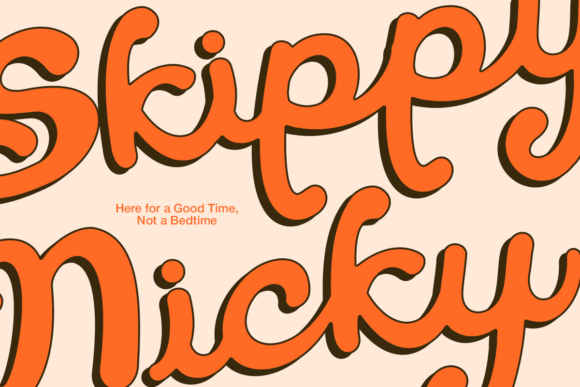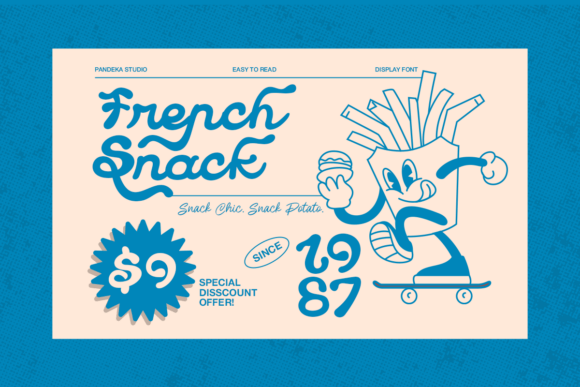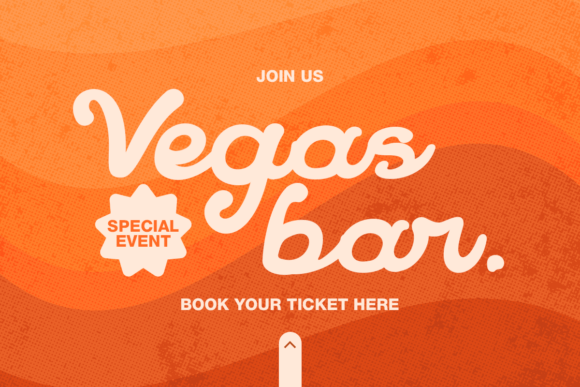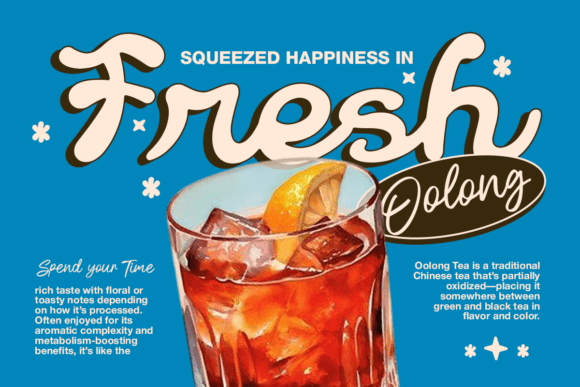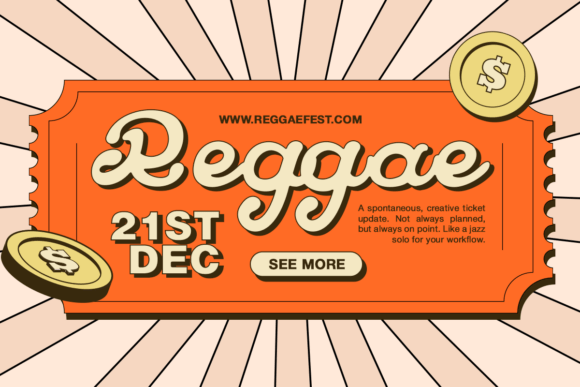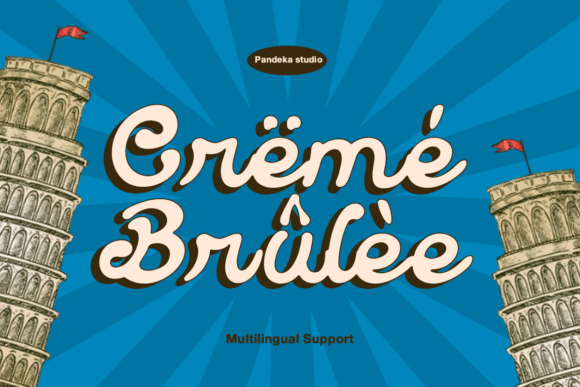
Glaigo Font: The Ultimate Choice for Fun and Playful Designs
In the world of typography, fonts play a crucial role in conveying the tone and personality of a design. If you’re looking for a font that exudes fun, playfulness, and a touch of retro charm, look no further than Glaigo. This bold and rounded script font is perfect for designers and crafters who want to add a dash of personality to their creations. In this article, we’ll dive into the world of Glaigo, exploring its features, benefits, and uses.
What is Glaigo Font?
Glaigo is a modern script font that boasts smooth, curvy strokes and a casual, laid-back vibe. Its unique style is characterized by rounded edges and a bold, yet playful appearance. This font is designed to add a touch of whimsy and fun to any design, making it perfect for projects that require a lighthearted and cheerful approach.
Key Features of Glaigo Font
- Bold and Playful: Glaigo’s bold strokes and playful curves make it a standout choice for designs that need to make a statement.
- Smooth and Curvy: The font’s smooth, curvy strokes give it a retro charm that’s hard to resist.
- Casual and Modern: Glaigo’s modern aesthetic and casual vibe make it perfect for designs that need to feel fresh and contemporary.
- Versatile: This font is suitable for a wide range of design projects, from logos and packaging to posters, social media, and branding.
Benefits of Using Glaigo Font
So, why choose Glaigo for your design projects? Here are just a few benefits of using this fantastic font:
- Adds Personality: Glaigo’s unique style and playful vibe help to add personality to your designs, setting them apart from the crowd.
- Evokes Emotions: The font’s cheerful and lighthearted appearance is sure to evoke emotions and create a connection with your audience.
- Enhances Brand Identity: Glaigo can help to create a consistent brand identity that’s fun, playful, and engaging.
- Easy to Read: Despite its bold and playful appearance, Glaigo is easy to read, making it perfect for body text and headlines.
Use Cases for Glaigo Font
Glaigo is a versatile font that can be used in a wide range of design projects. Here are some ideas to get you started:
- Logos: Create a bold and playful logo that showcases your brand’s personality.
- Packaging: Add a touch of whimsy to your packaging designs with Glaigo’s fun and curvy strokes.
- Posters: Create eye-catching posters that grab attention with Glaigo’s bold and playful appearance.
- Social Media: Use Glaigo to add a dash of personality to your social media graphics and posts.
- Branding: Develop a consistent brand identity with Glaigo’s unique style and modern aesthetic.
Tips for Using Glaigo Font
To get the most out of Glaigo, here are some tips to keep in mind:
- Experiment with Colors: Glaigo looks great in bold and bright colors, so don’t be afraid to experiment and find the perfect hue for your design.
- Mix and Match: Combine Glaigo with other fonts to create a unique and eye-catching typography.
- Play with Sizes: Use Glaigo in different sizes to create visual interest and hierarchy in your design.
- Keep it Simple: Don’t overcomplicate your design – Glaigo’s bold and playful appearance can speak for itself.
In conclusion, Glaigo is a fantastic font that’s perfect for designers and crafters who want to add a touch of fun and playfulness to their designs. With its bold and curvy strokes, modern aesthetic, and versatile uses, Glaigo is sure to become a favorite in your design toolkit. So why not give it a try and see how Glaigo can elevate your designs to the next level?